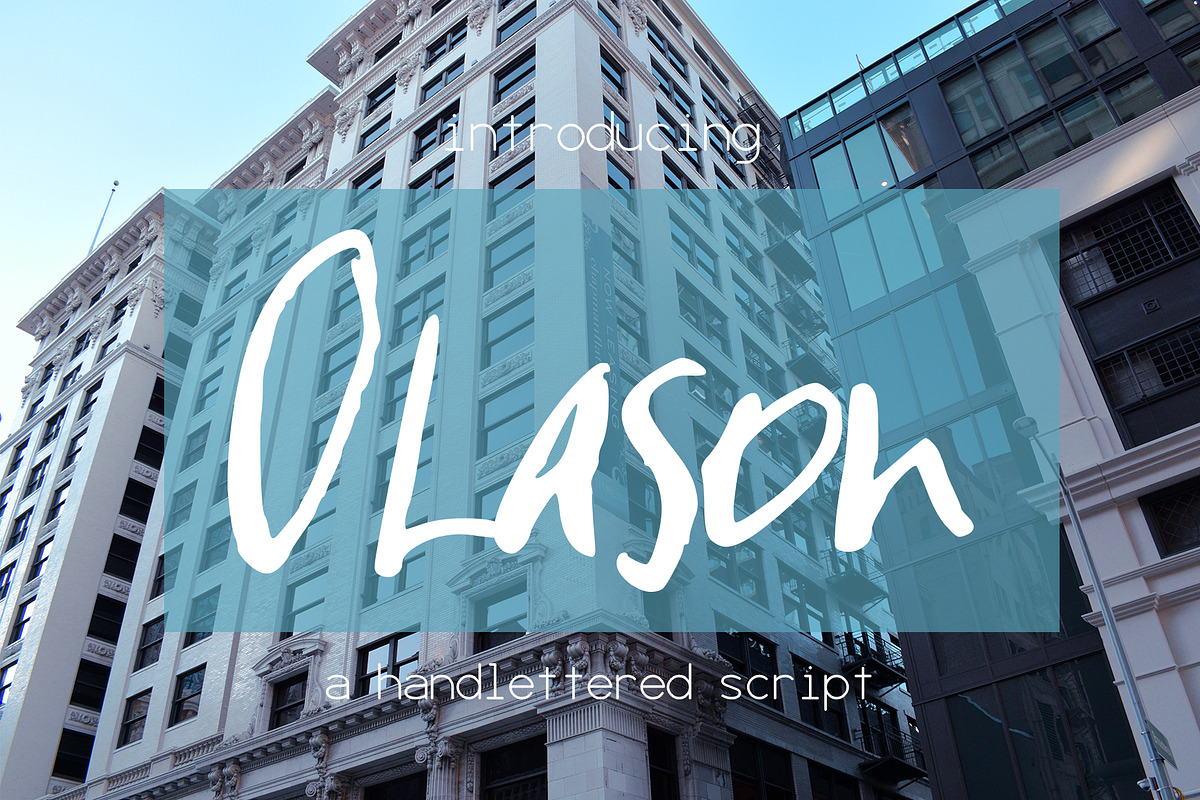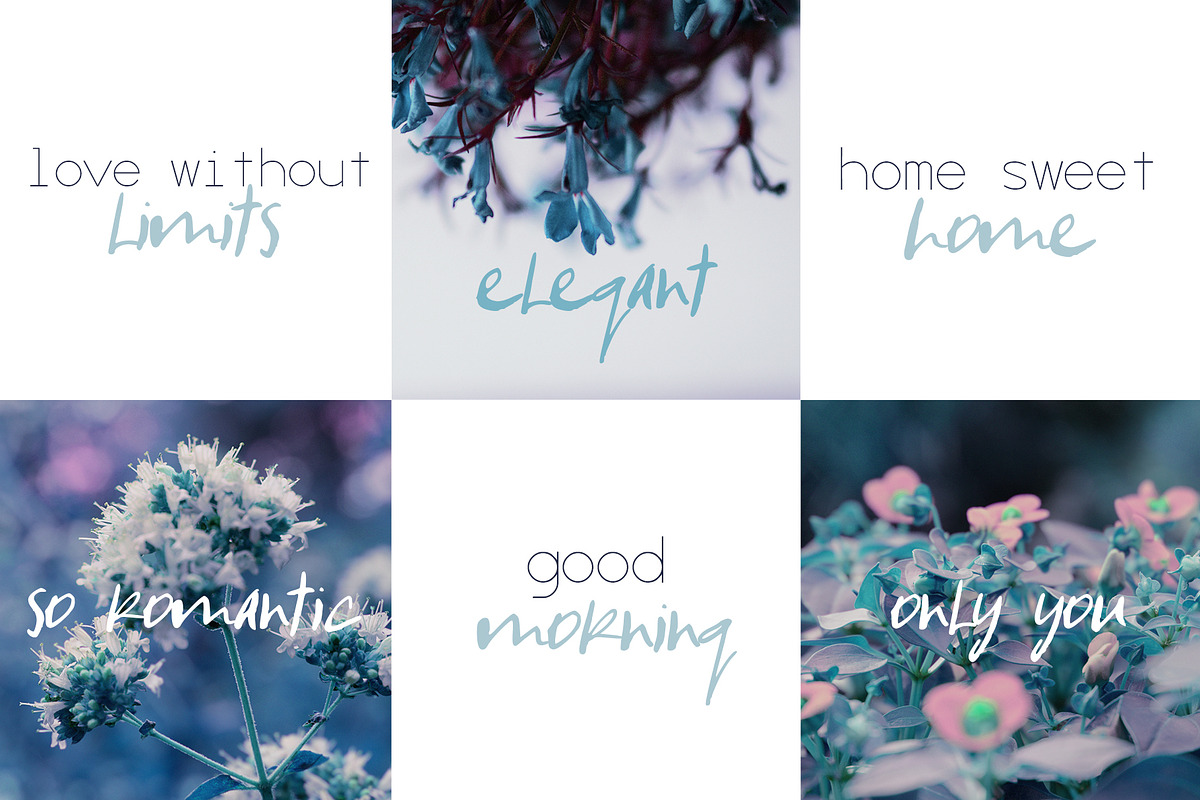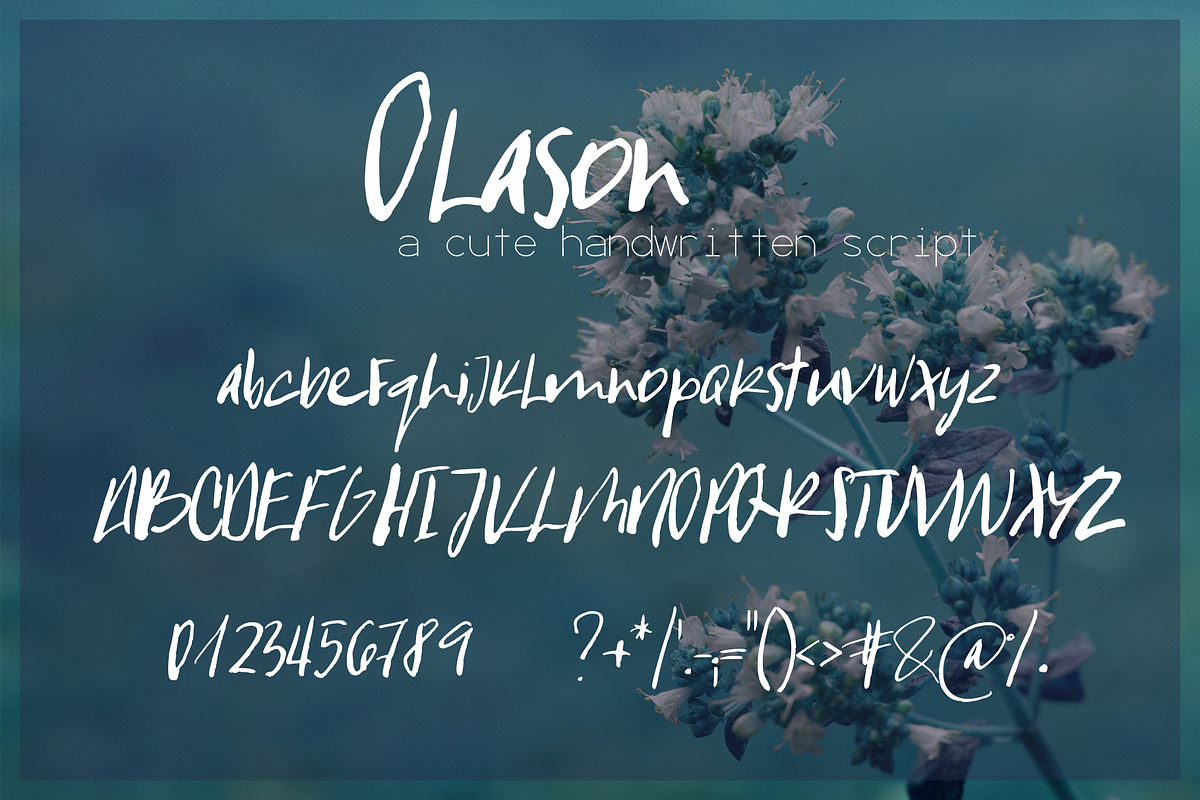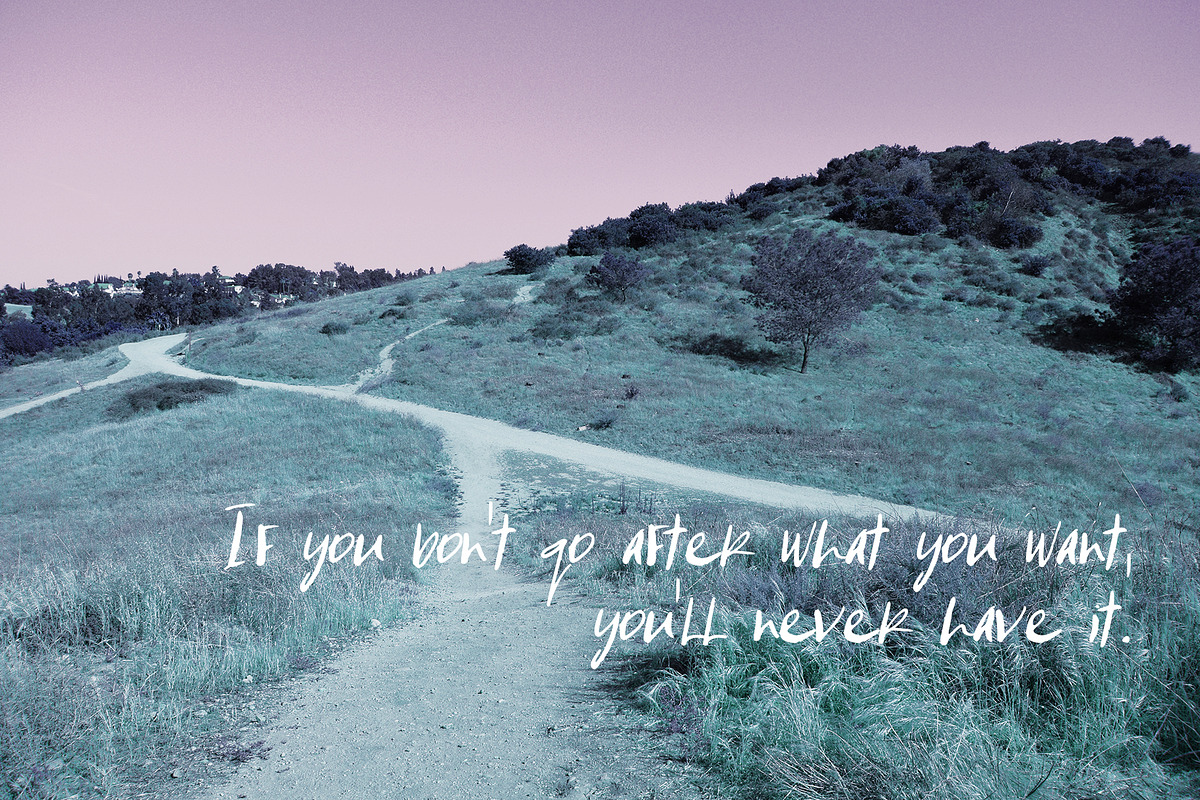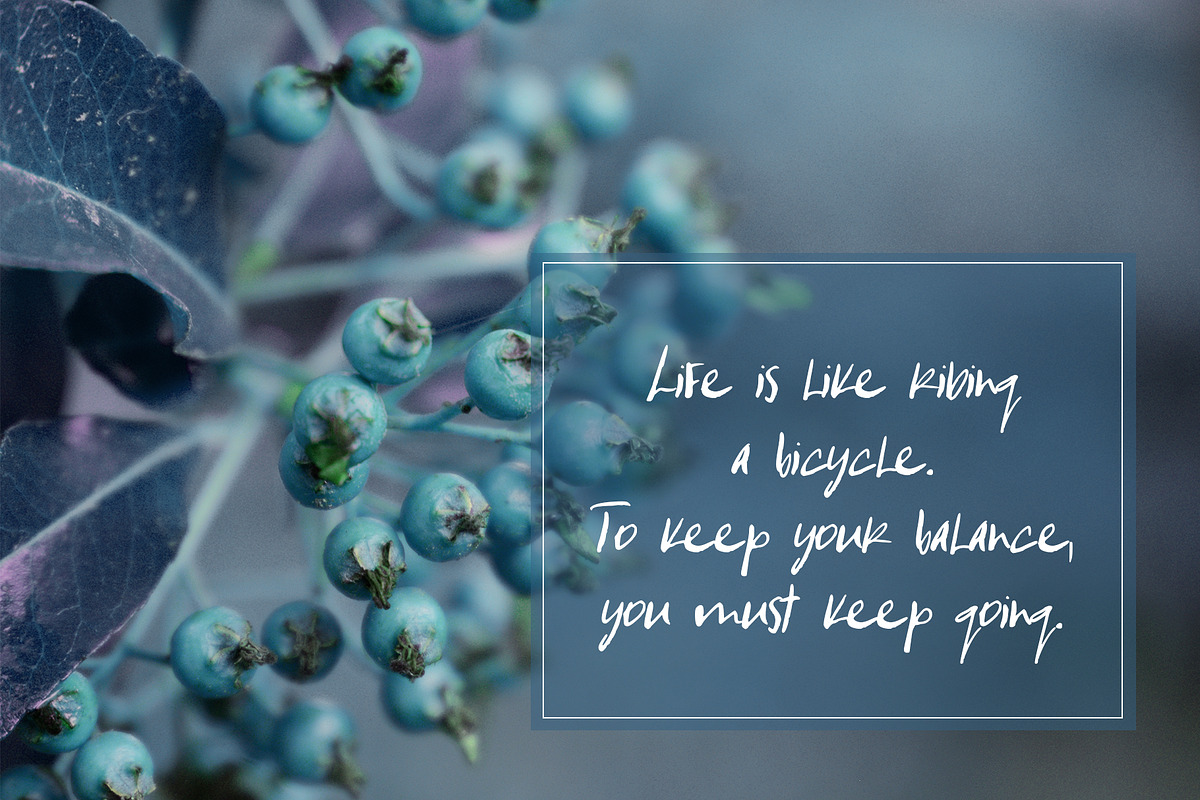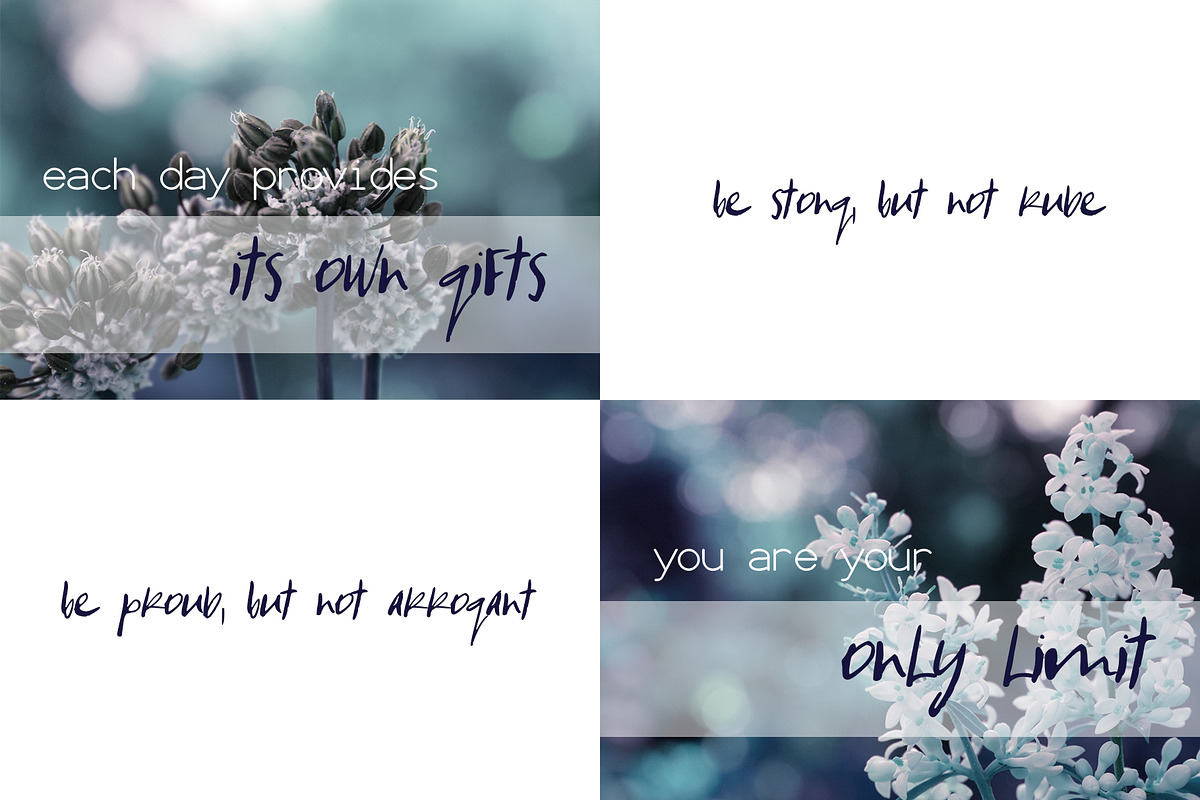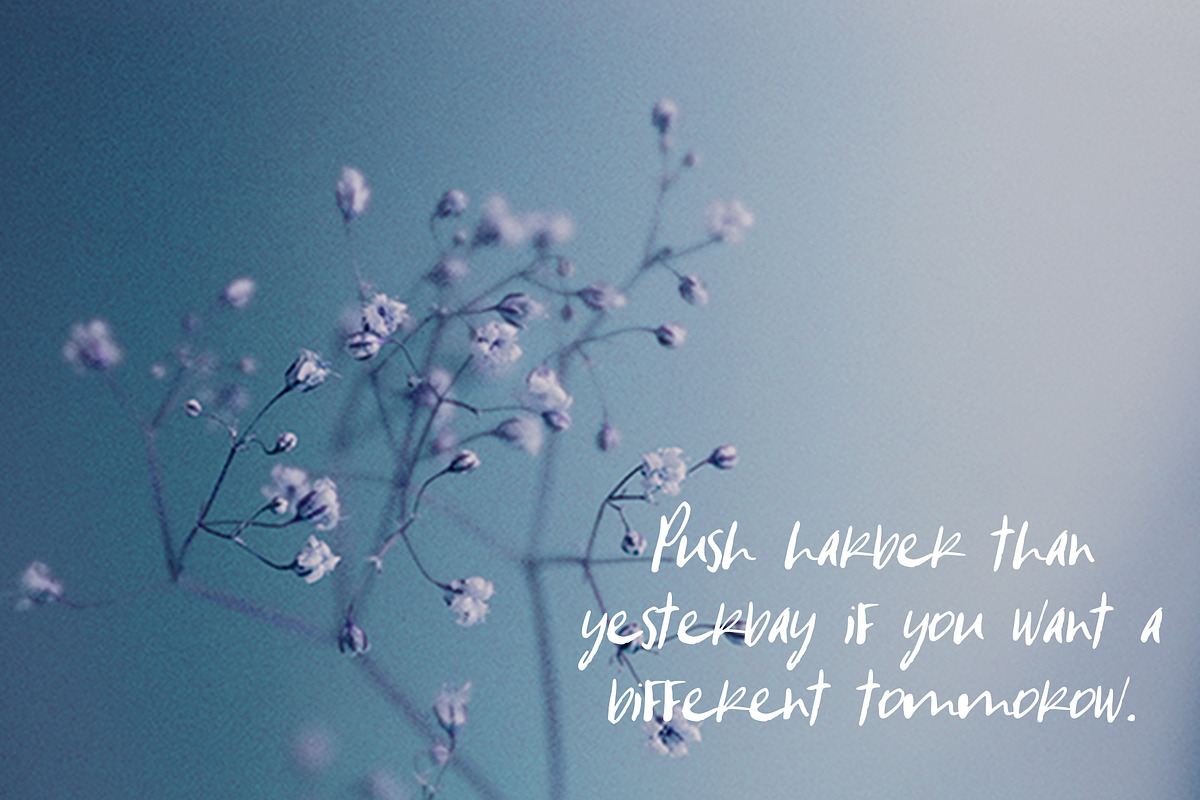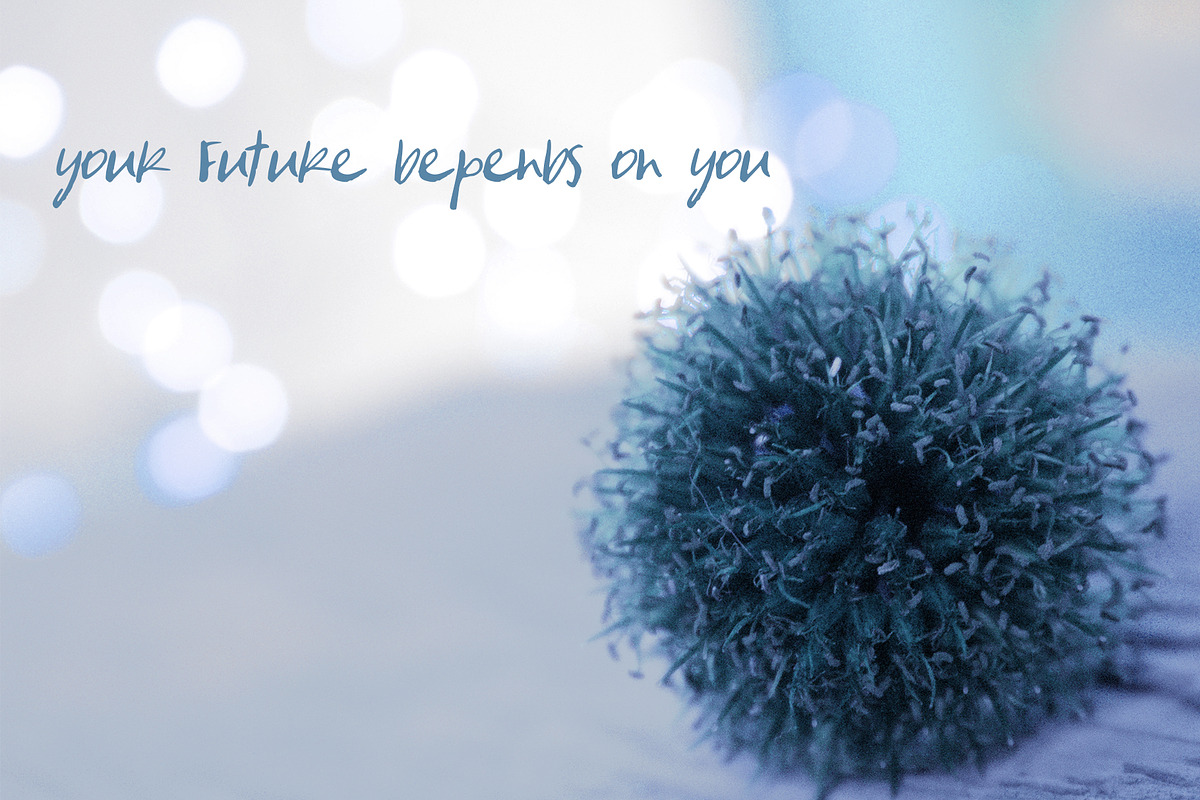
Olason Font
Introducing Olason, a gorgeous handwritten script.💗 Perfect for any graphic and logo designs, wedding and birthday invitations.
- Olason font contains uppercase & lowercase characters, numbers and punctuations.